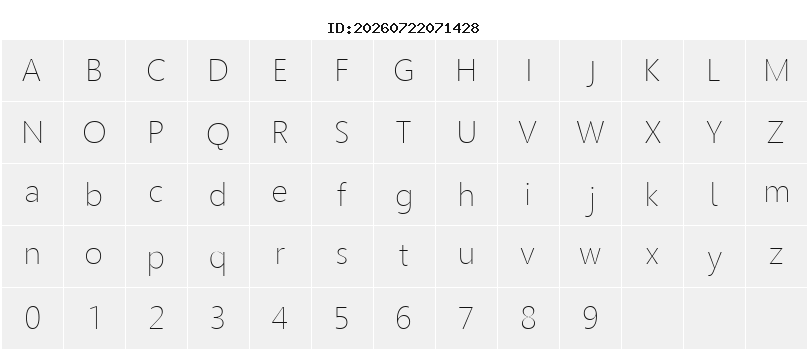
Homizio Preview
• Font Name: Homizio
• Font Style: Thin
• Font ID: AlvaroThomazFonts: Homizio Thin: 2012
• Full Font Name: Homizio Thin
• Version: Version 1.000 2012 initial release
• PostScript Name: Homizio-Thin
• Character Count: 225
• Designer: Alvaro Thomaz
• Manufacturer: Alvaro Thomaz Fonts
About Homizio.ttf
Homizio.ttf is a modern, elegant sans-serif font designed for ultimate readability and visual harmony. Perfect for branding, headlines, web design, and print materials.